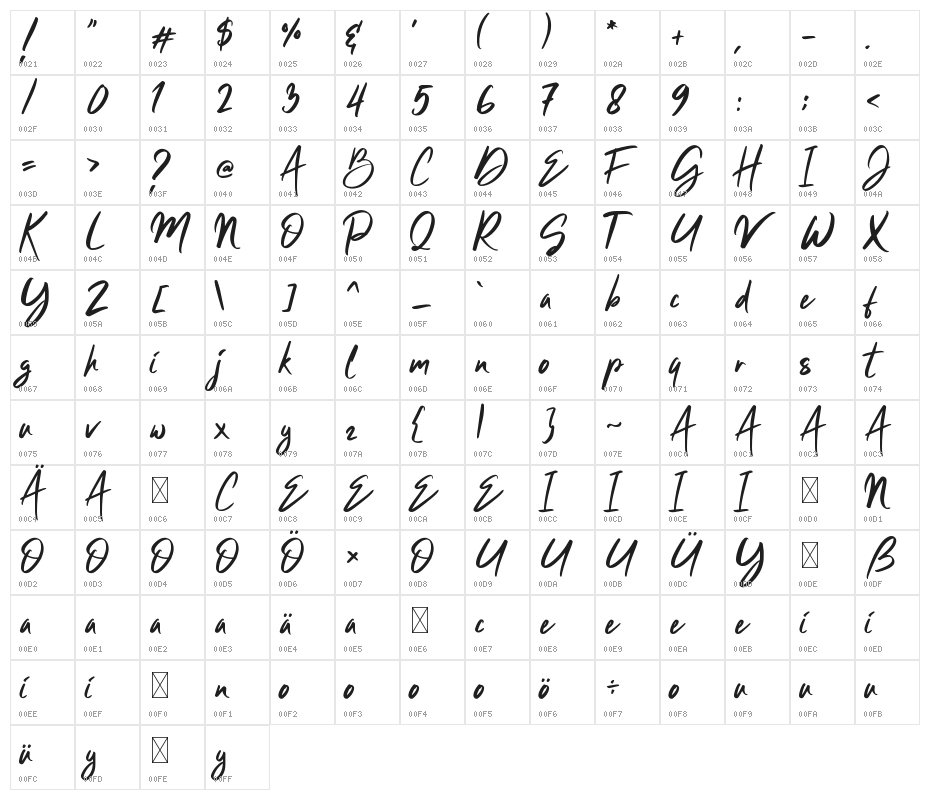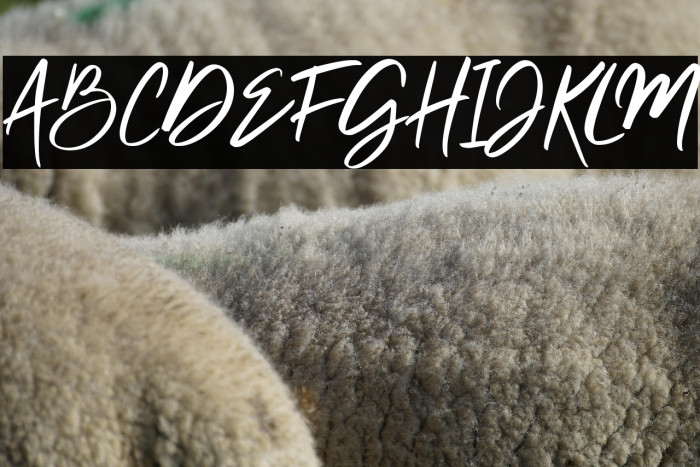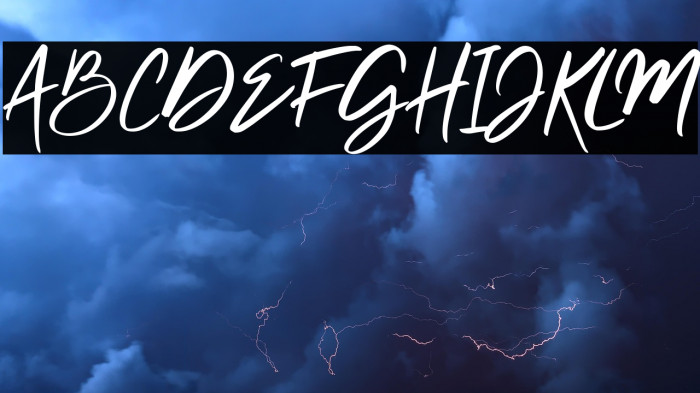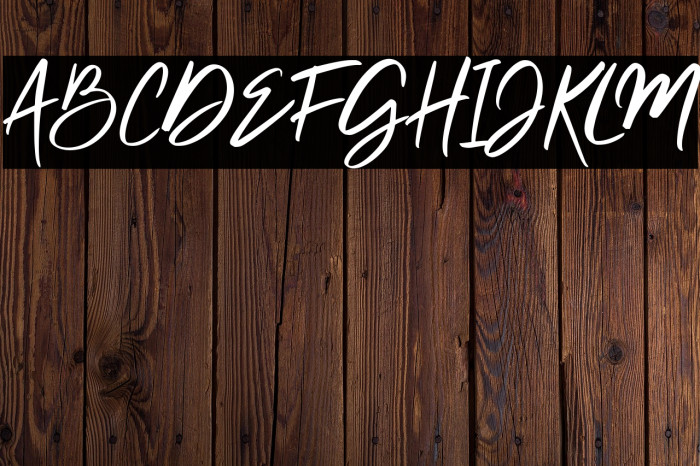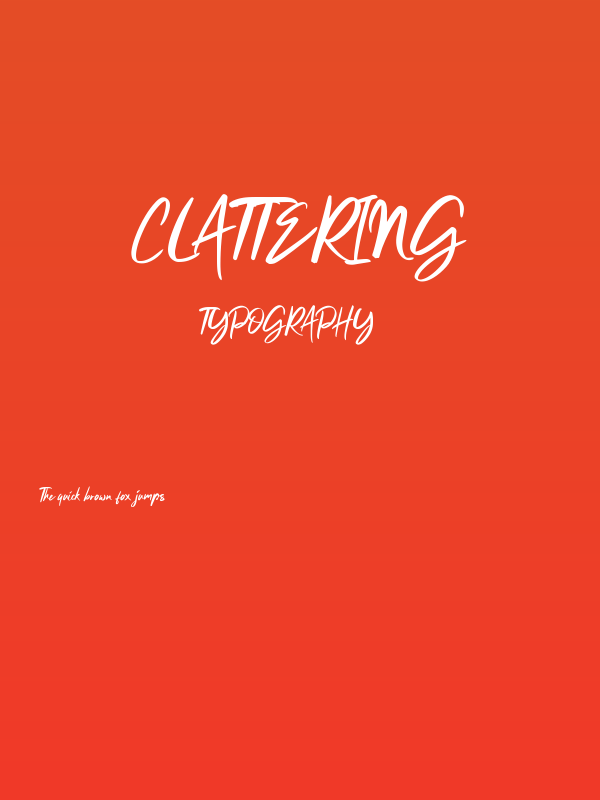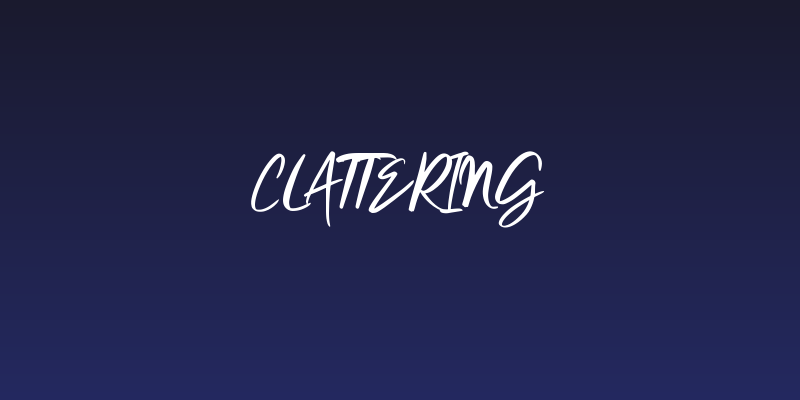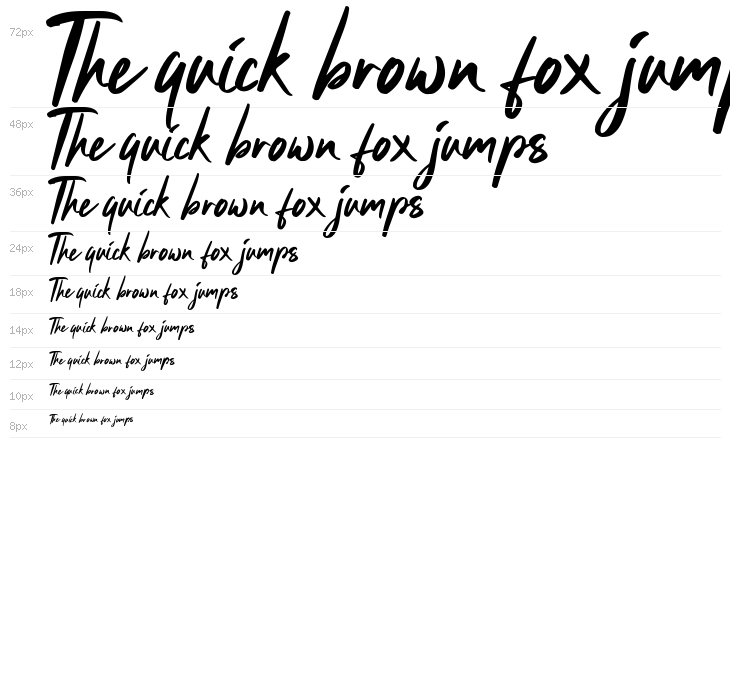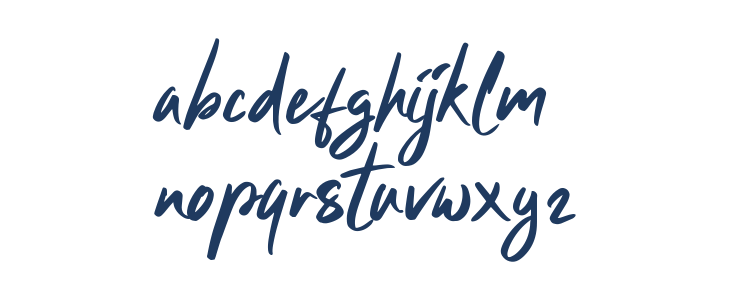
Clattering Font
Clattering Description
This font features a dynamic and energetic script style, characterized by its fluid and expressive strokes. The letters are connected in a way that mimics natural handwriting, with a slight slant that adds to its casual and informal appearance. The uppercase letters are bold and prominent, while the lowercase letters maintain a consistent flow, enhancing readability. The numbers and special characters are designed to match the overall style, ensuring a cohesive look across all text elements. This font is ideal for projects that require a personal touch, such as invitations, greeting cards, or branding materials.
| Proposed Projects | Ideal for invitations, greeting cards, branding, and personal projects. |